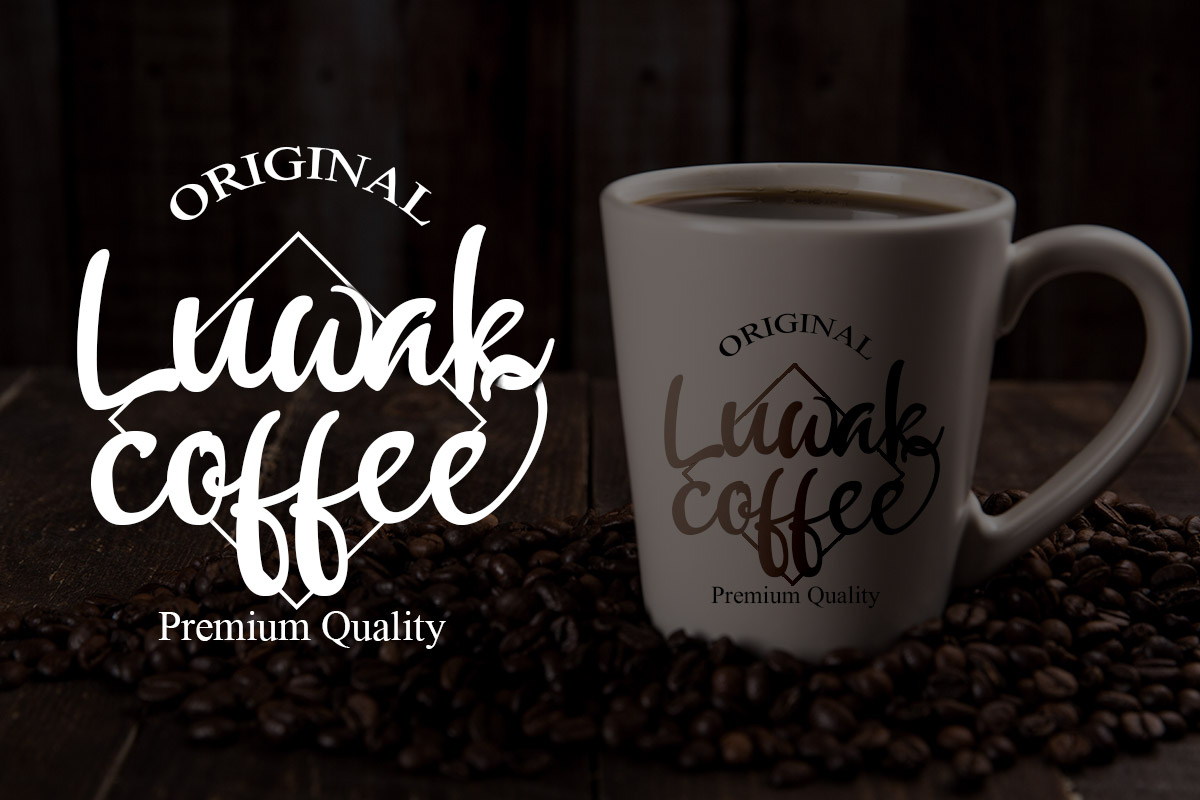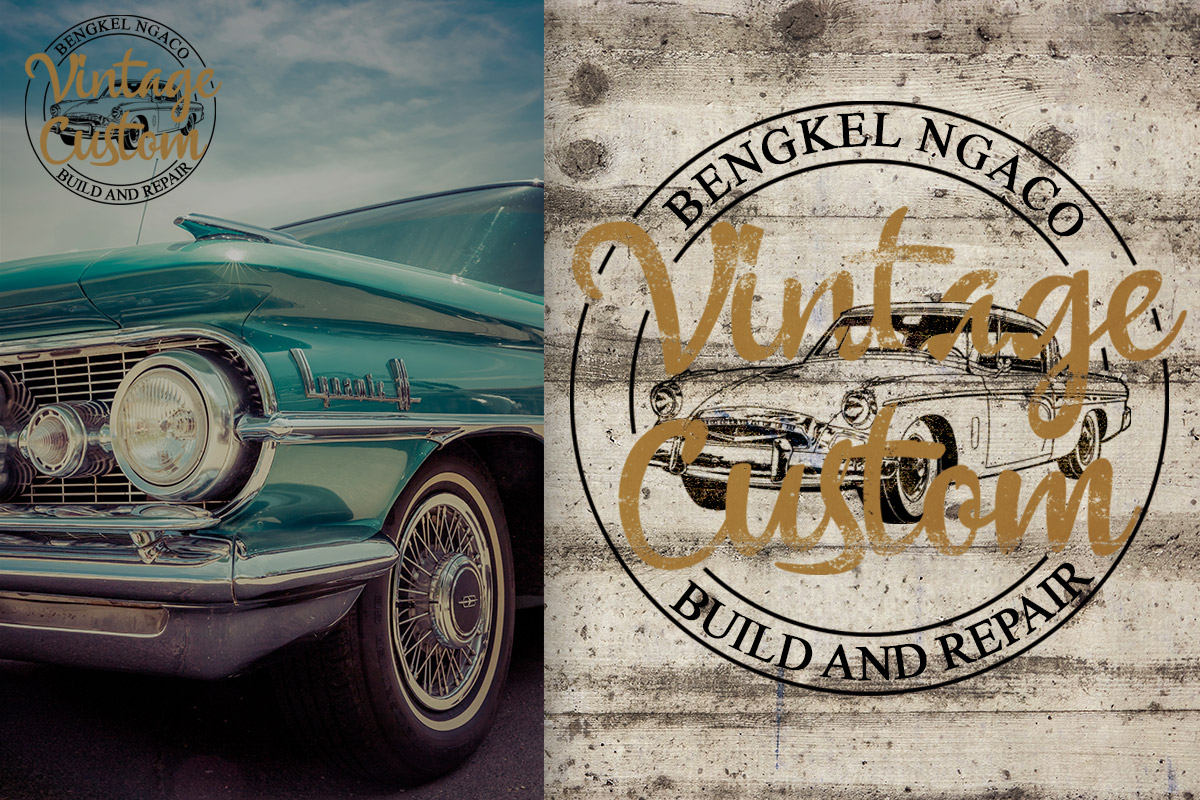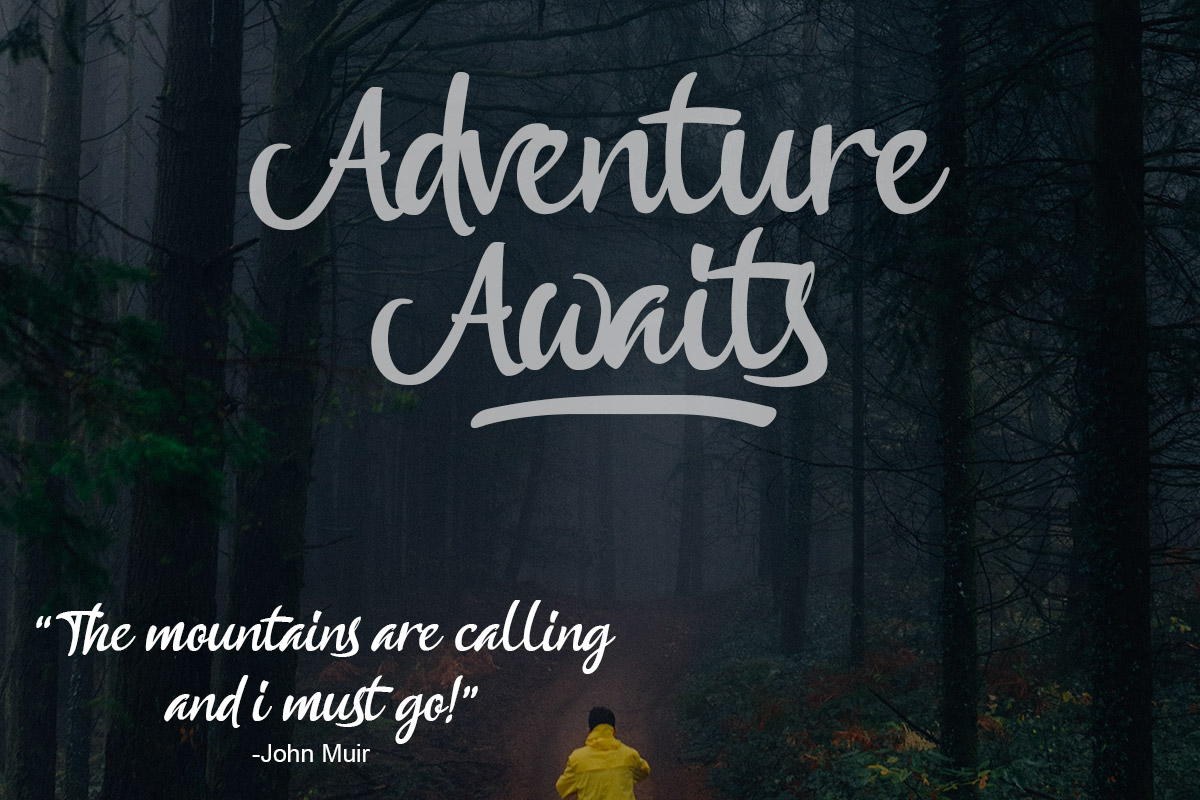
Anthurium Free Font
Anthurium Free Font is a beautiful handwritten script font. This font is PUA encoded which means you can access all of the glyphs and swashes with ease!. It’s the perfect font for, photography, social media posts, product packaging, greeting cards, and much more, this font also multilingual support. This free typeface was designed by a talented Lemonthe. If you like it don’t forget to check out the full version.